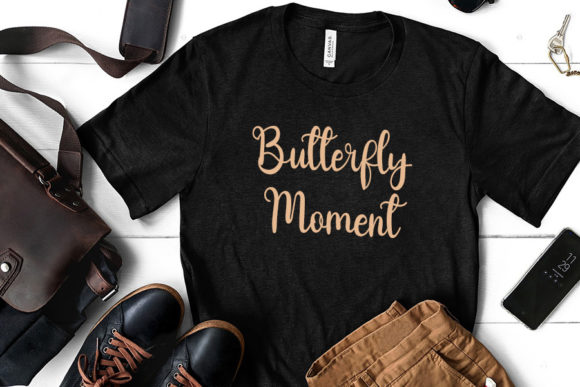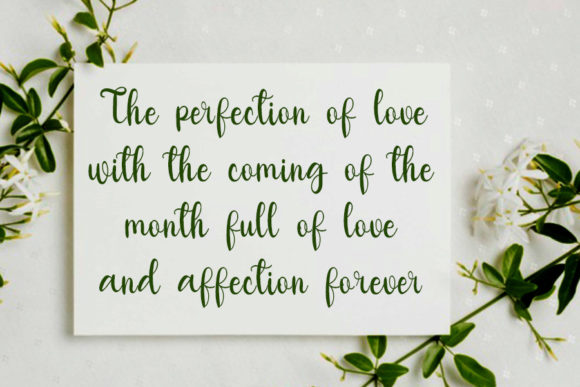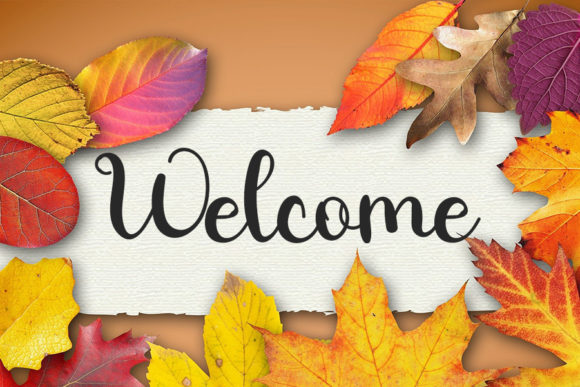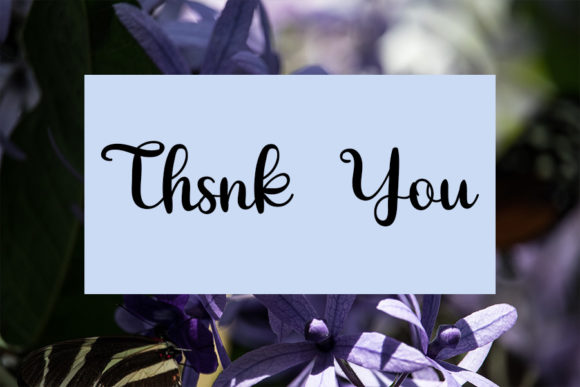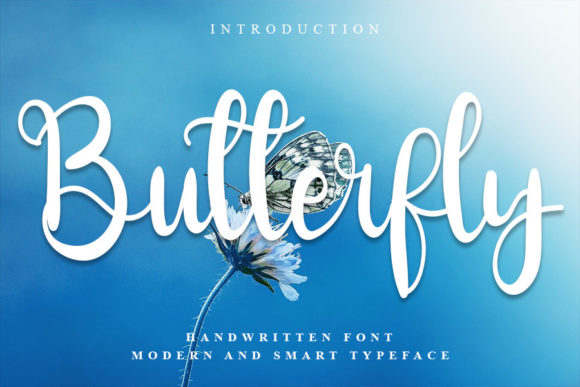
The Butterfly Effect: How a Chic Script Font Can Transform Your Designs
I’ll never forget the time I was working on a branding project for a high-end fashion client. I had spent hours perfecting the logo, but something felt off. The font I had chosen just wasn’t delivering the level of sophistication and elegance that the brand required. I scoured the internet for the perfect script font, and then I stumbled upon Butterfly. It was love at first sight! ✨ With its stylish alternates and ligatures, Butterfly instantly elevated the entire design. In this article, I’ll share my experience with this beautiful font, and provide you with a comprehensive guide on how to make the most of its features.
An Honest Review of Butterfly Font
• ✨ Elegant and refined script style that’s perfect for high-end branding projects
• ✅ Extensive range of stylish alternates and ligatures to add visual interest
• ⚡️ Highly legible, even at smaller font sizes
• 🌈 Beautifully crafted to evoke a sense of sophistication and luxury
While Butterfly is an exceptional font, there are a few things to keep in mind: 🤔
• ⚠️ Some of the more intricate ligatures can be a bit finicky to use, especially for beginners
• 🤔 The font’s elegance can make it less suitable for very casual or playful projects
Butterfly was designed by a team of typographers who wanted to create a font that embodied the elegance and sophistication of a butterfly’s wings. With its intricate details and flowing lines, Butterfly is a true masterpiece of font design.
Q: Is Butterfly font suitable for body text?
A: While Butterfly is a beautiful font, it’s primarily designed for display use. For body text, you may want to choose a font with better legibility at smaller font sizes.